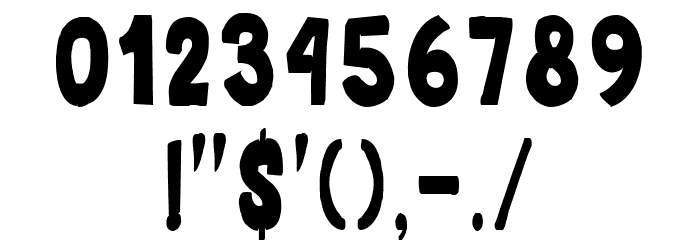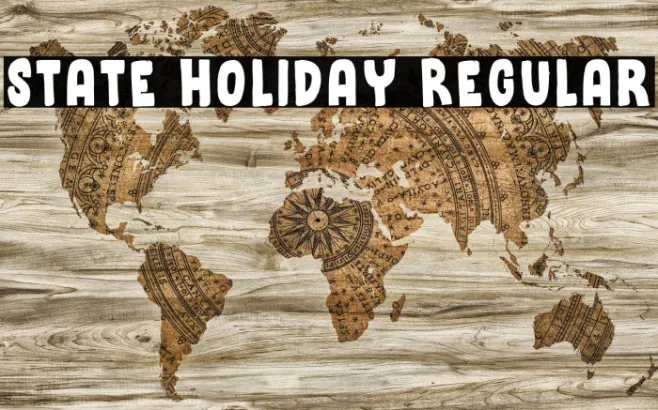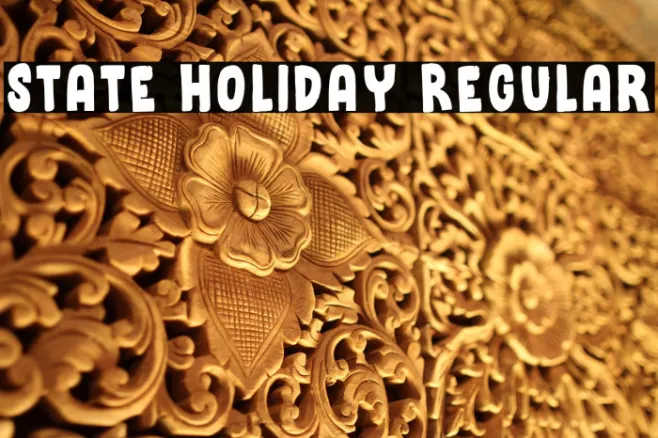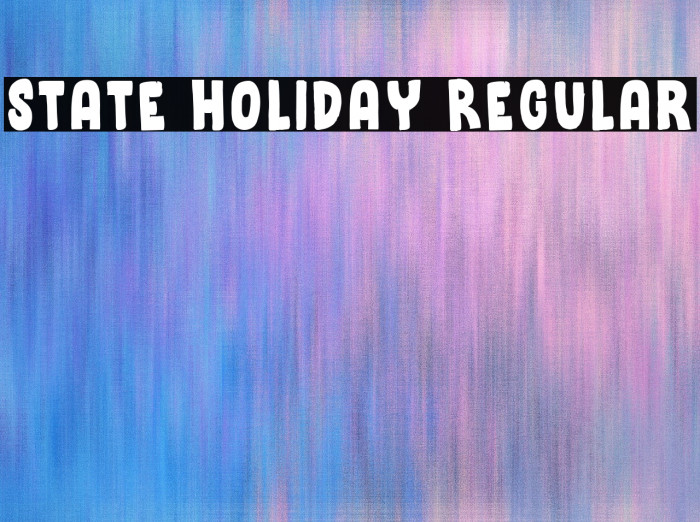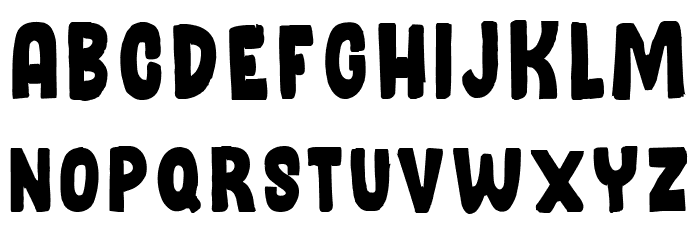
State Holiday Regular Font
This font features a bold and playful style with a distinctly hand-drawn appearance. The characters are rounded and slightly irregular, giving them a casual and friendly vibe. The uppercase letters are prominent and have a consistent height, while the lowercase letters maintain a similar width, creating a harmonious look. The numbers and special characters follow the same playful design, making them suitable for creative and informal projects. The overall aesthetic is reminiscent of vintage signage or retro posters, adding a touch of nostalgia to any design.
A bold, playful font with a hand-drawn, vintage style.
• Proposed Projects: Ideal for posters, children's books, greeting cards, and playful branding.
• Category: Decorative/Display
• Bold: Yes
• Italic: No
• Weight: Bold
• Width: Normal
• Character Spacing: Normal
• Contrast: Low
• Overall Style: Vintage
• Use Case: Headlines, Logos